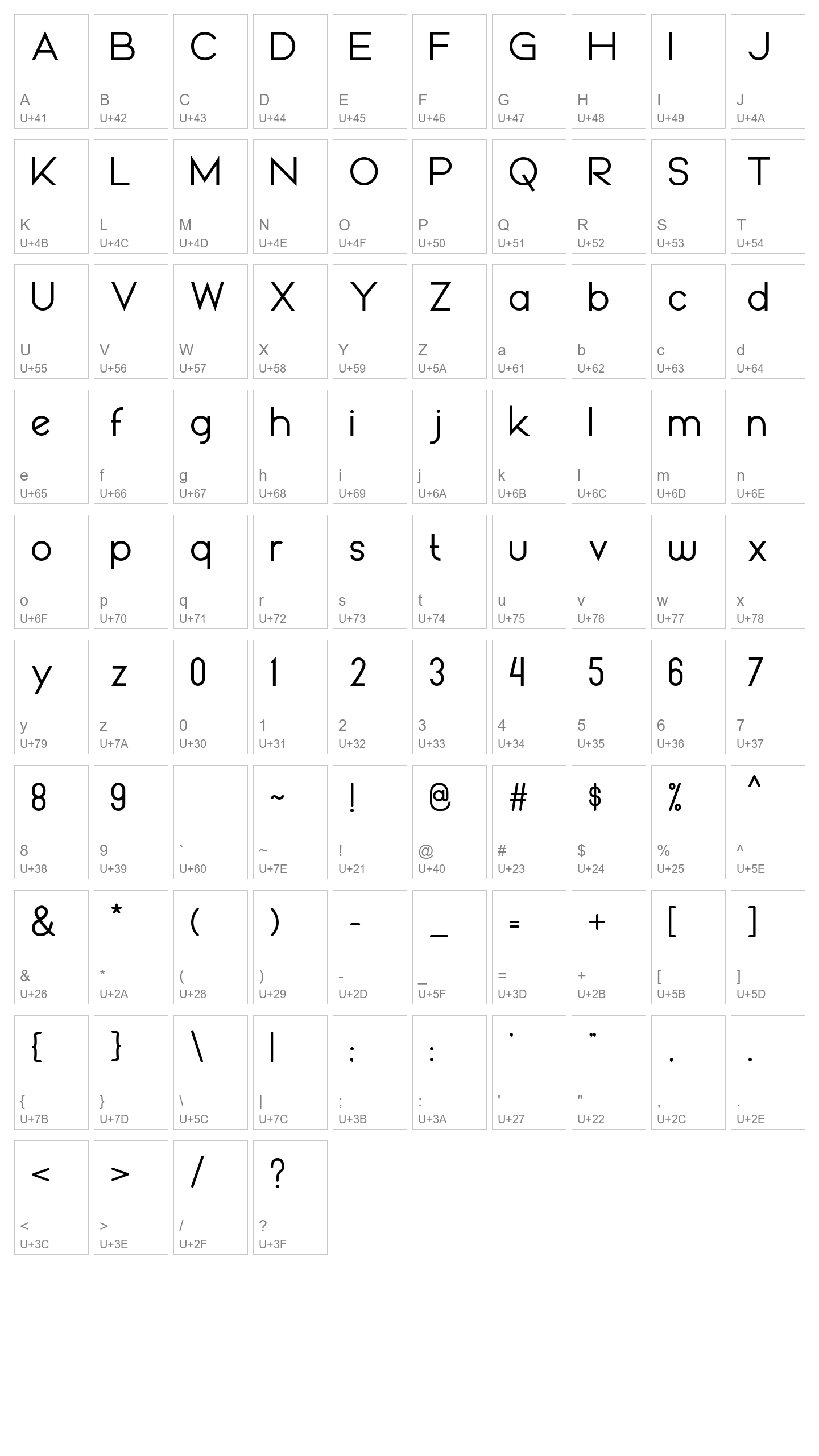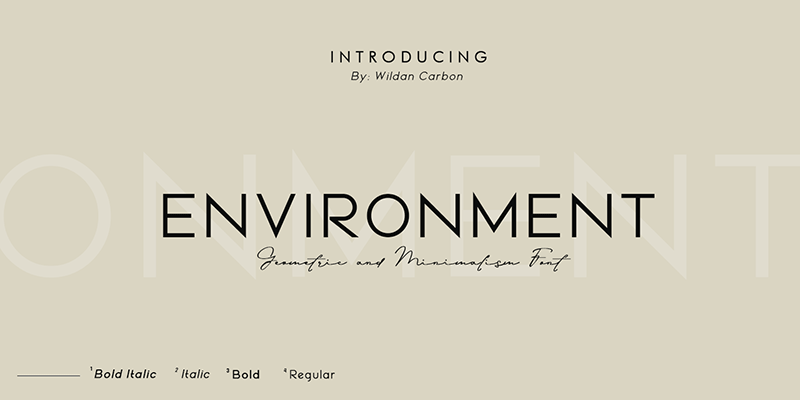
Environment
Environment is a sans serif font style, suitable for all of your product. This is only personal use. if you need full version and Get more of my product, come to this link;